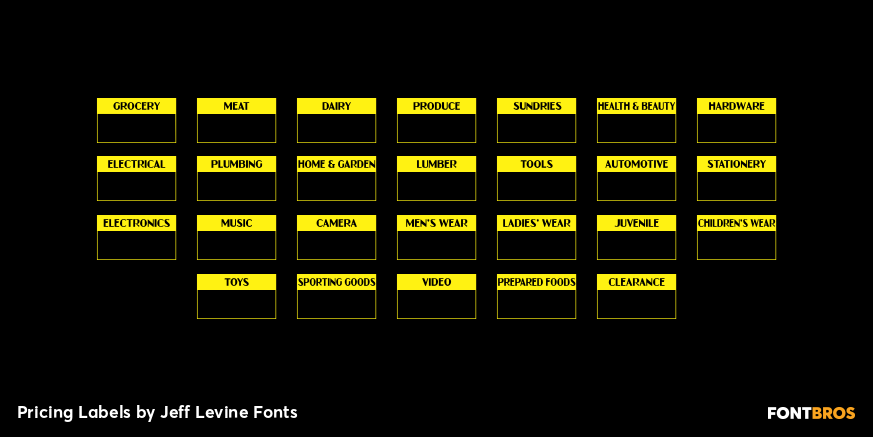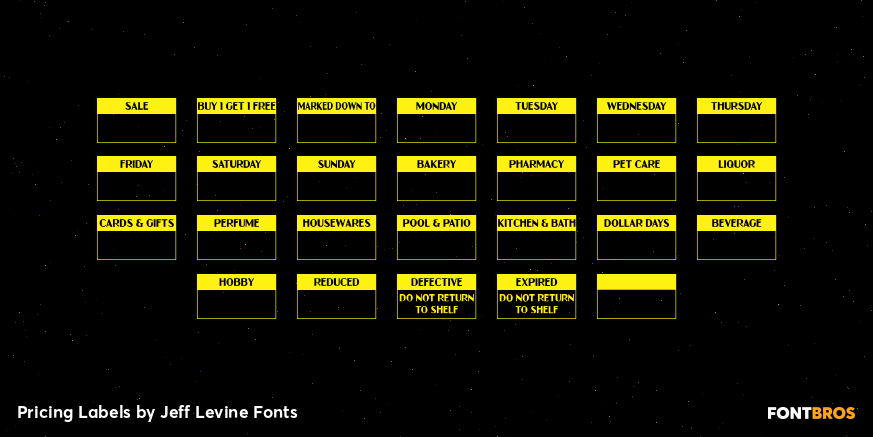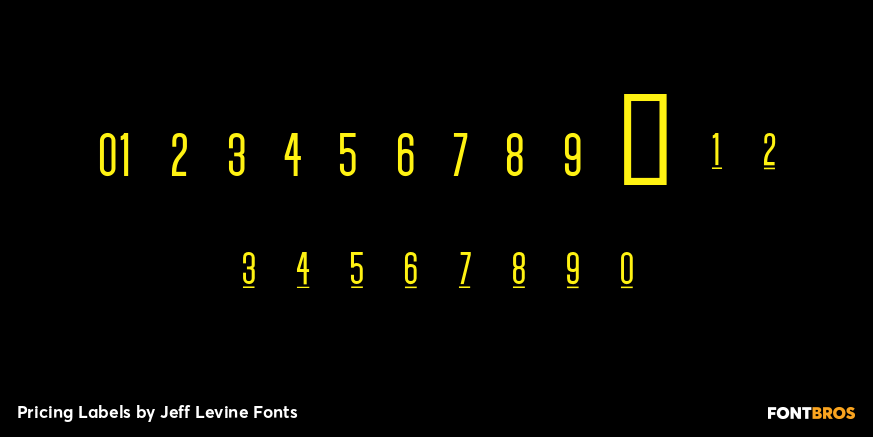
Pricing Labels
Pricing Labels JNL gives you a set of digital price gun labels in fifty-one of the most common store departments, plus an untitled title label on the lower case 'z' key.
Additionally, numbers for creating prices are on the standard keystrokes (for dollar amounts), with smaller numbers/underscores (for cents amounts) sit on the shift key groupings for the number keys.
The dollar and cents sign are on the left and right brackets, the decimal point is on the period key and the words "each" and "for" [set sideways] are on the greater and lesser keys.